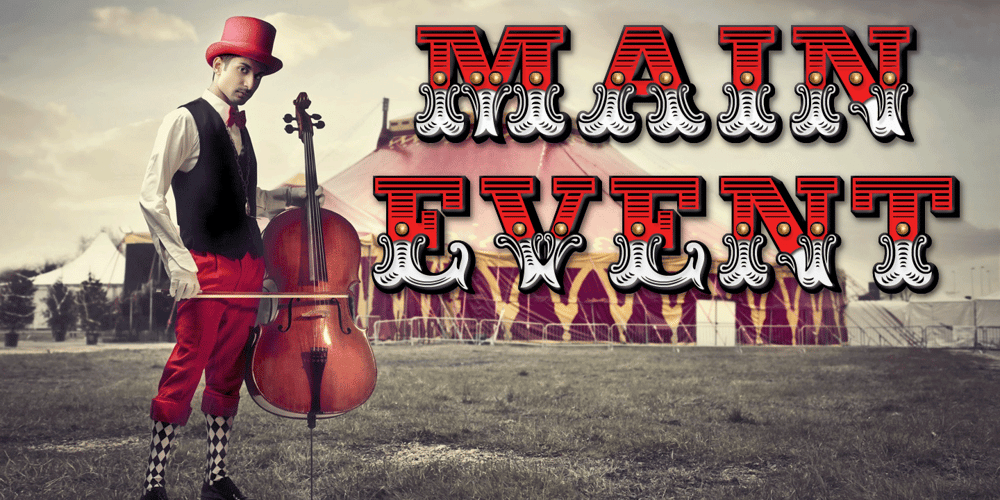
Main Event
Main Event font
Main Event Font Family was designed by Michael Hagemann and published by FontMesa. Main Event contains 6 styles and family package options. Main Event is a revival of a very old Italian font that you may have seen in the past under the original name of Tuscan Ornate or Bracelet. Dating back to 1860 or earlier it has never been known to have a lower case set of letters. Previously only in upper case, this font comes alive again with the addition of a newly designed lower case set of letters.